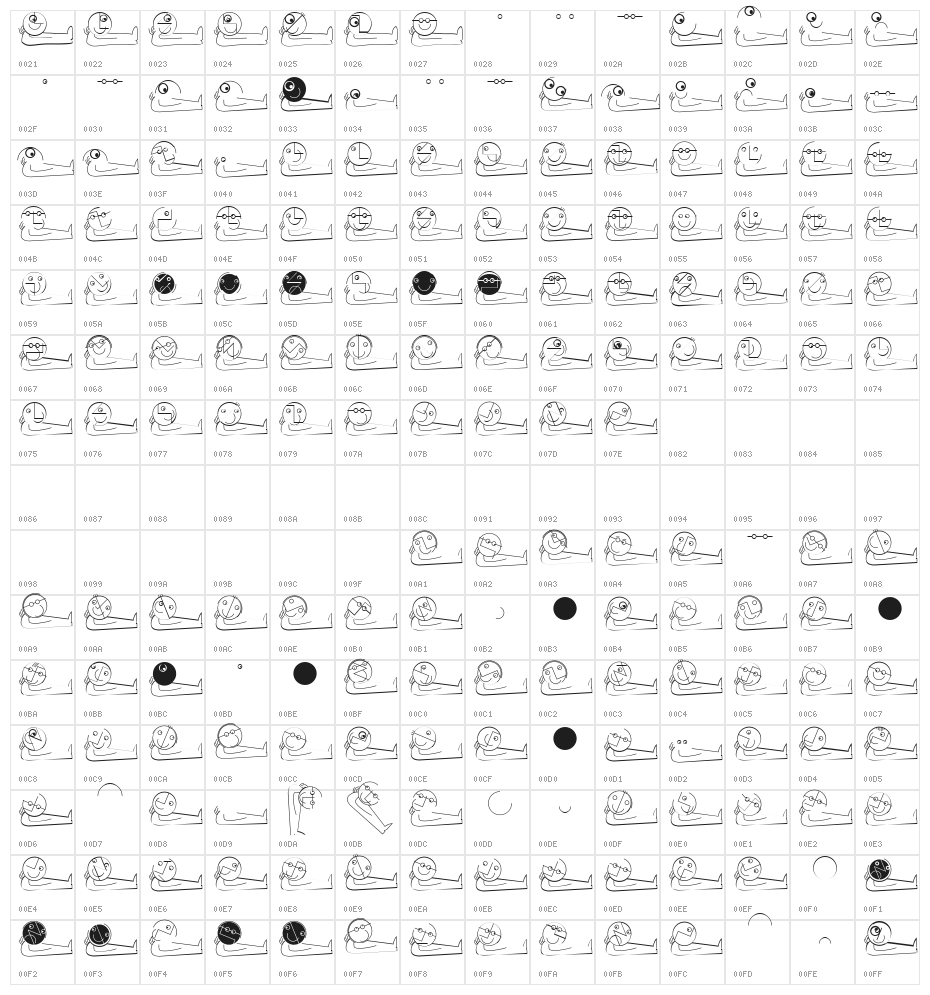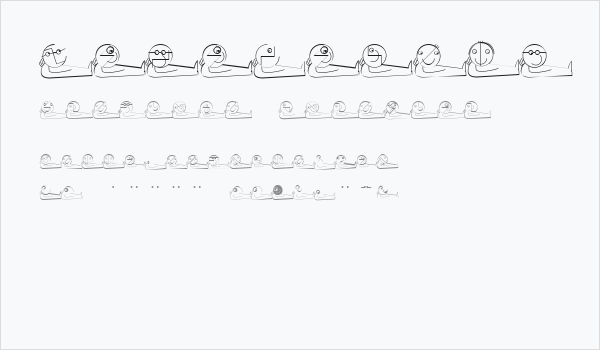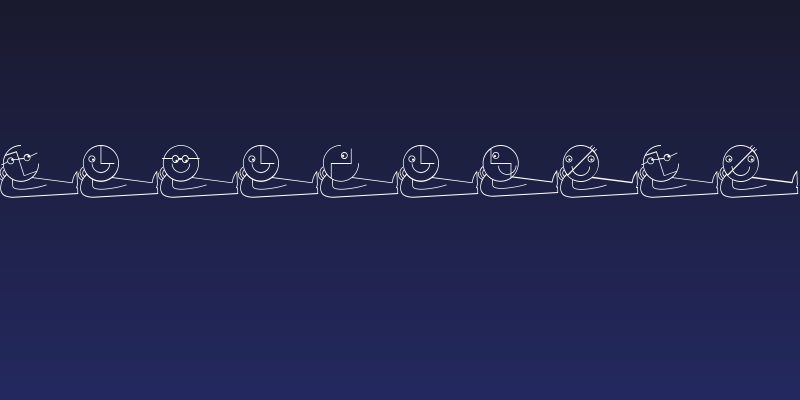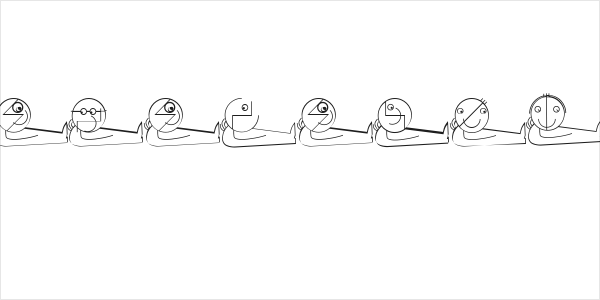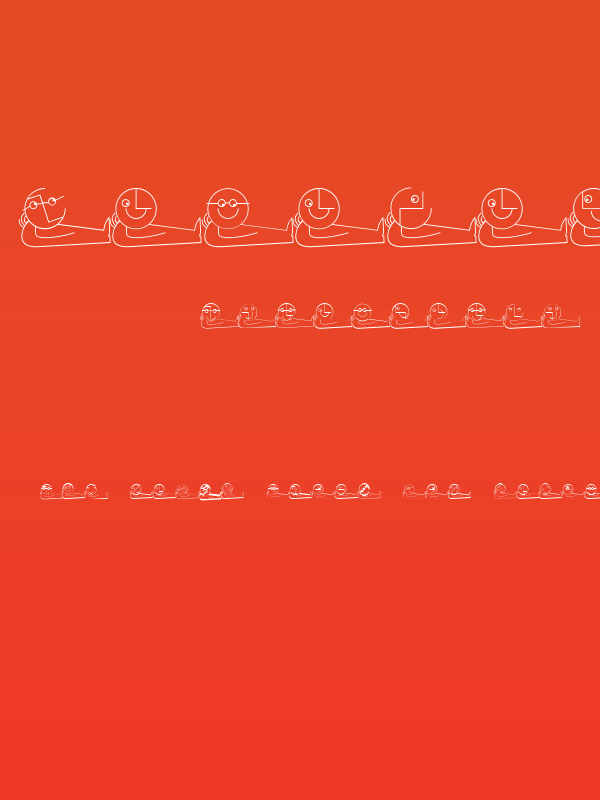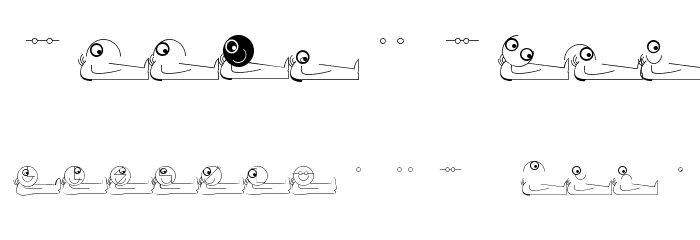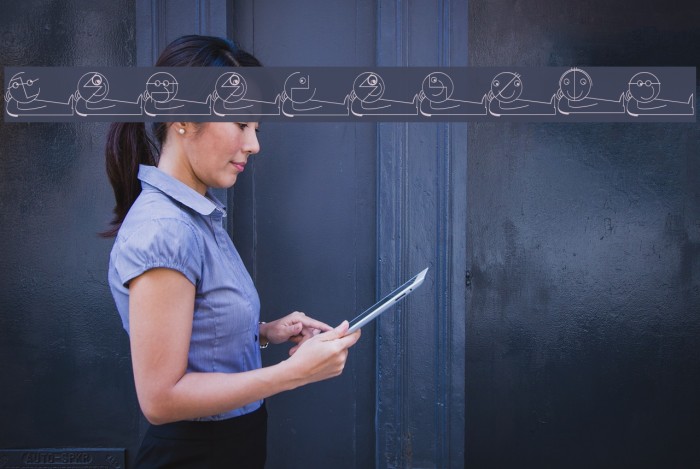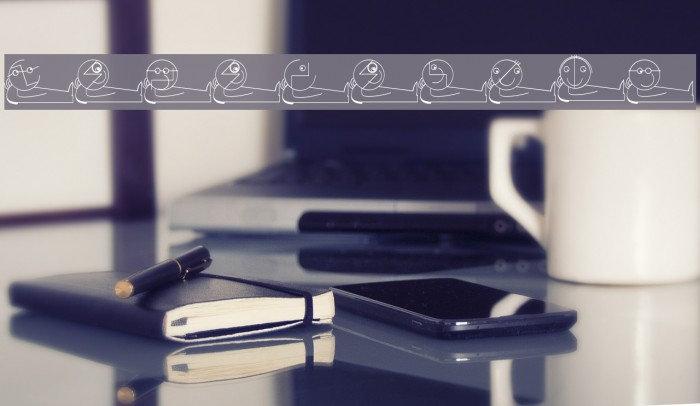
LogoModels Font
| Style général | Playful and Artistic |
| Cas d'utilisation | Logos, Posters, Creative Projects |
| Projets proposés | Ideal for creative projects such as children's books, playful branding, artistic posters, and unique invitations. |